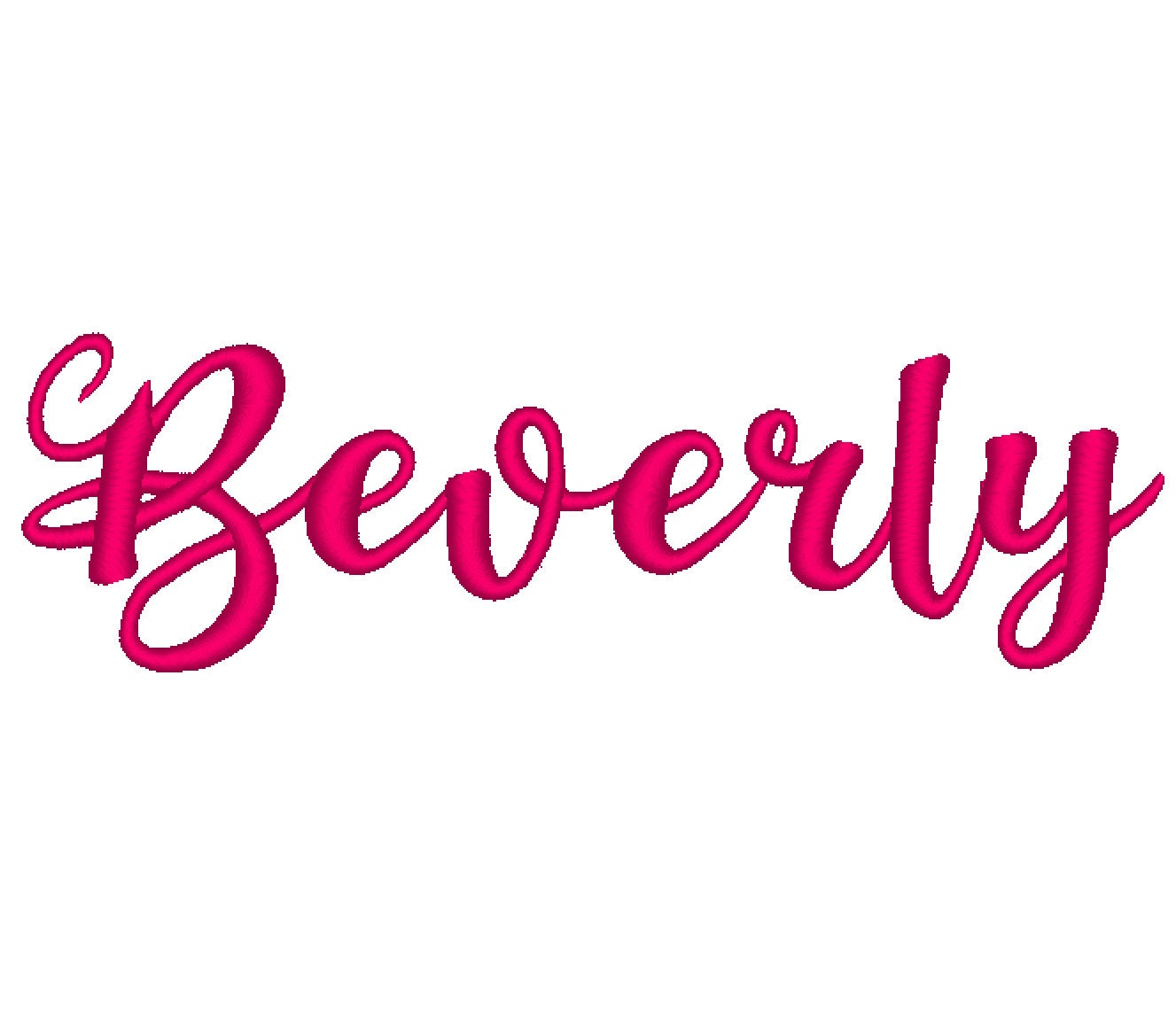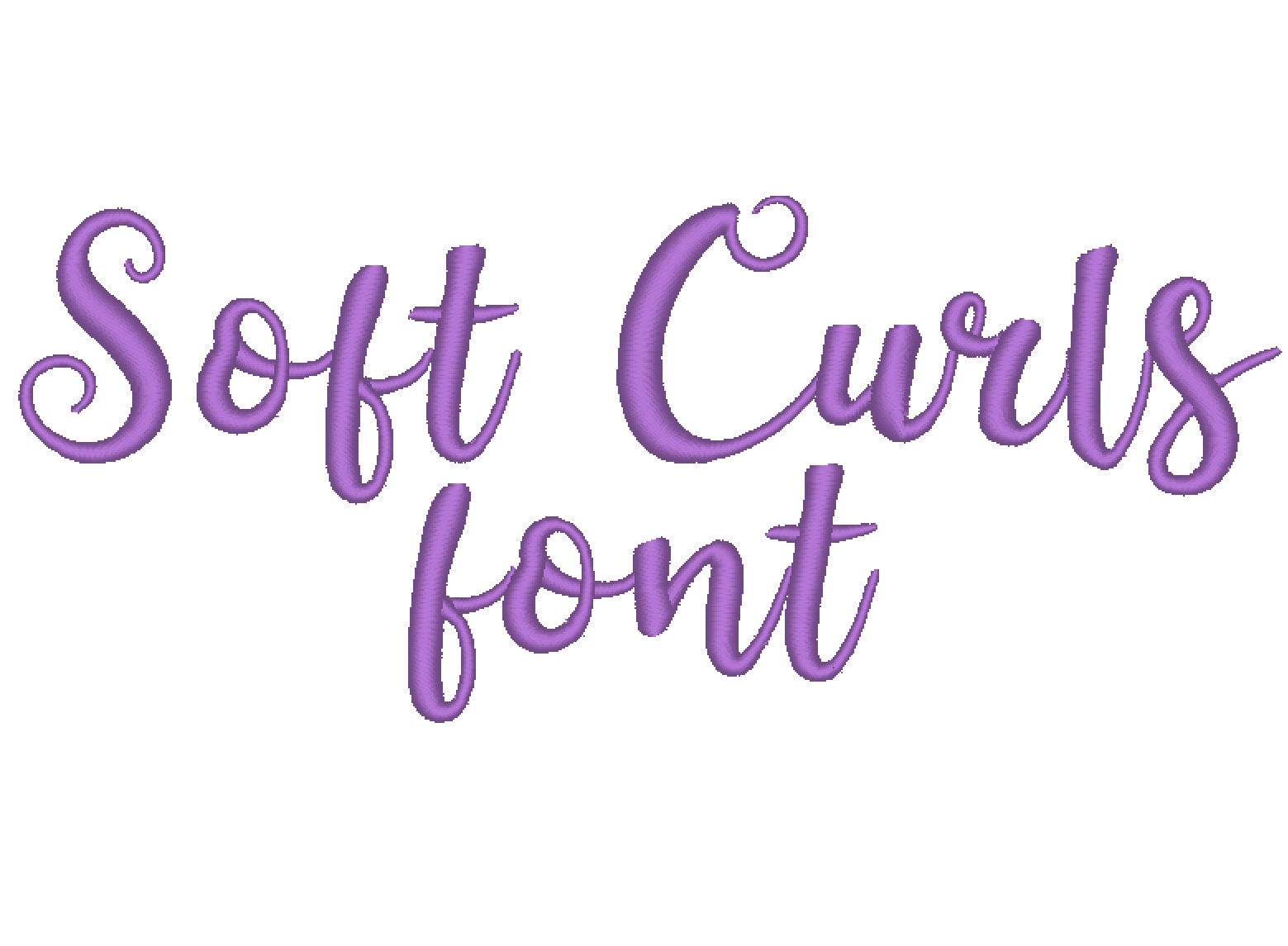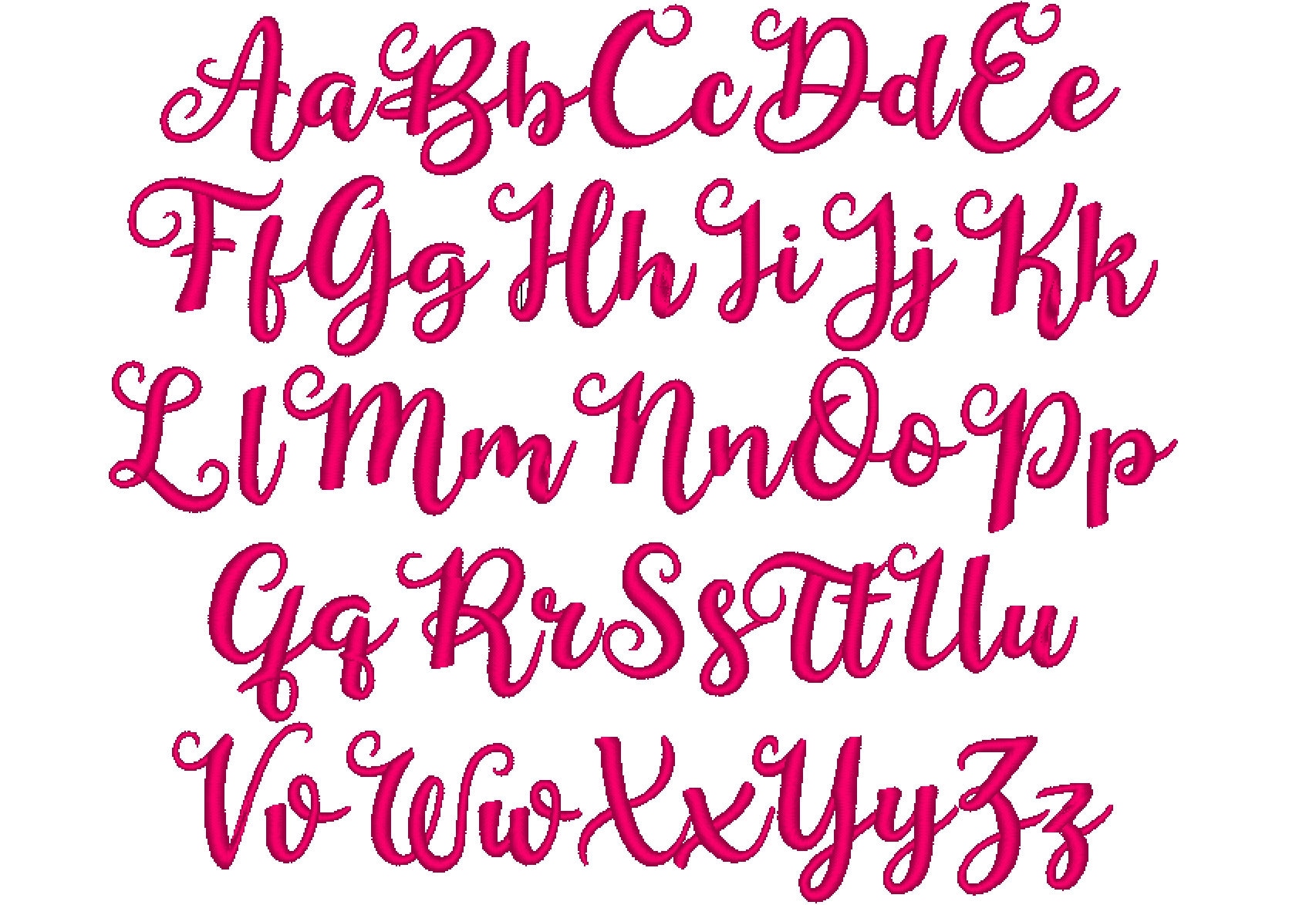
Cute curl FONT handwritten script Alphabet satin stitch Monogram girls pretty font machine embroidery designs mini sizes 0.5 up to 2.1in BX
Entire alphabet of capital and lowercase letters, and numbers.